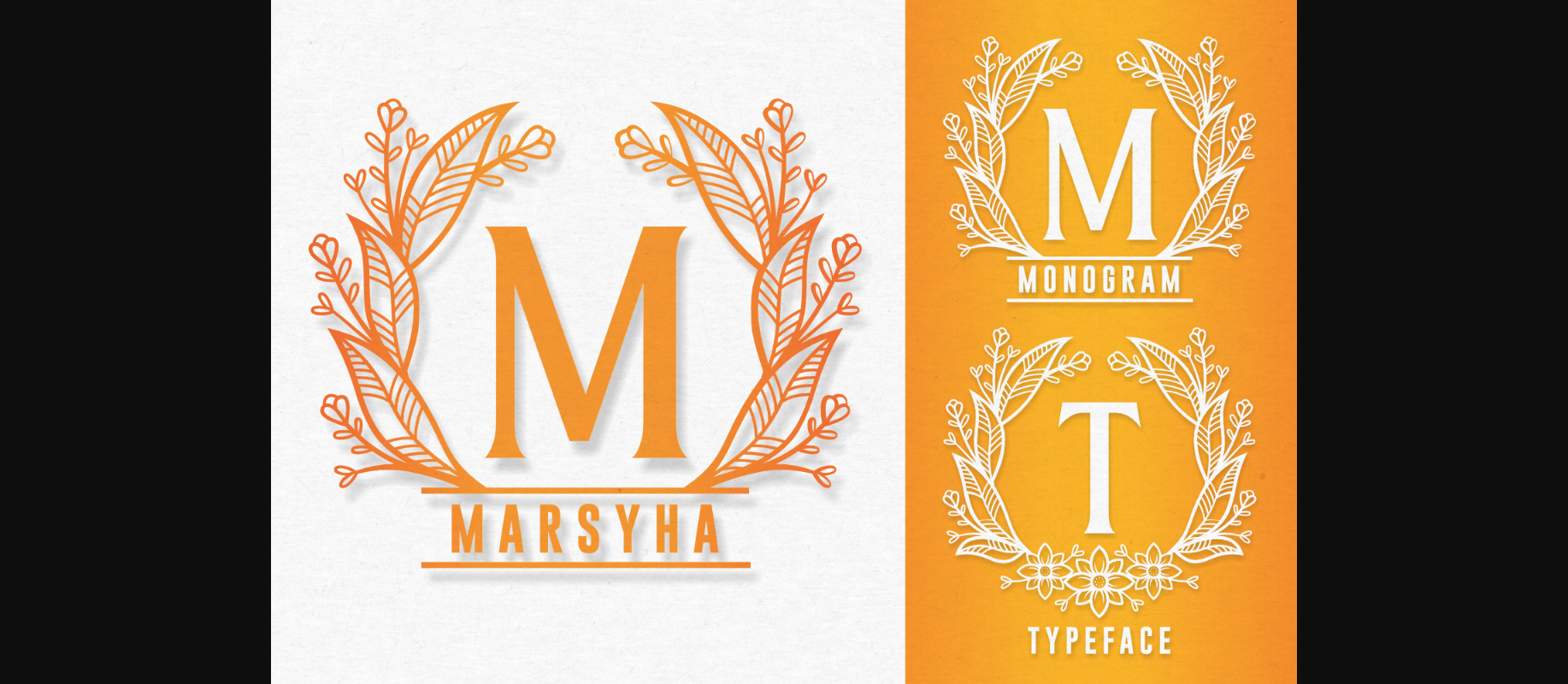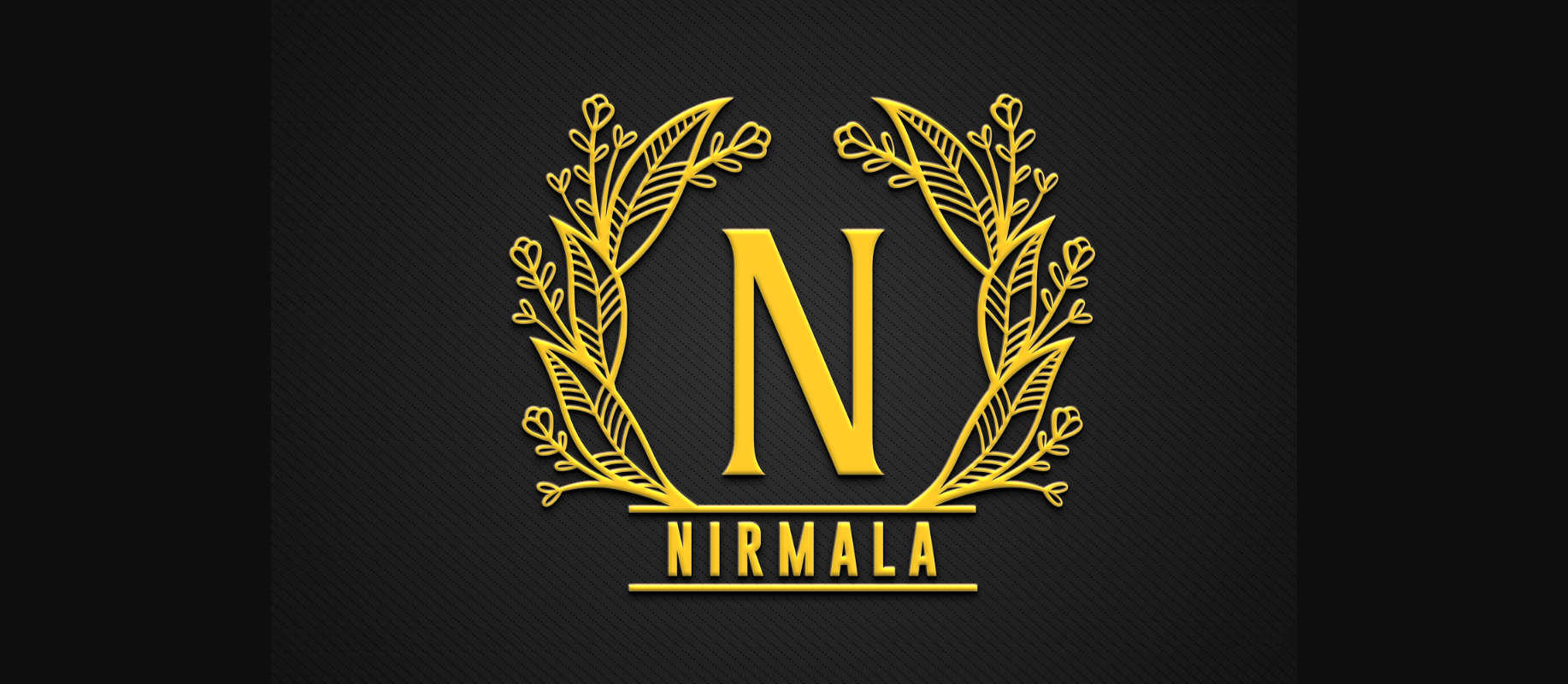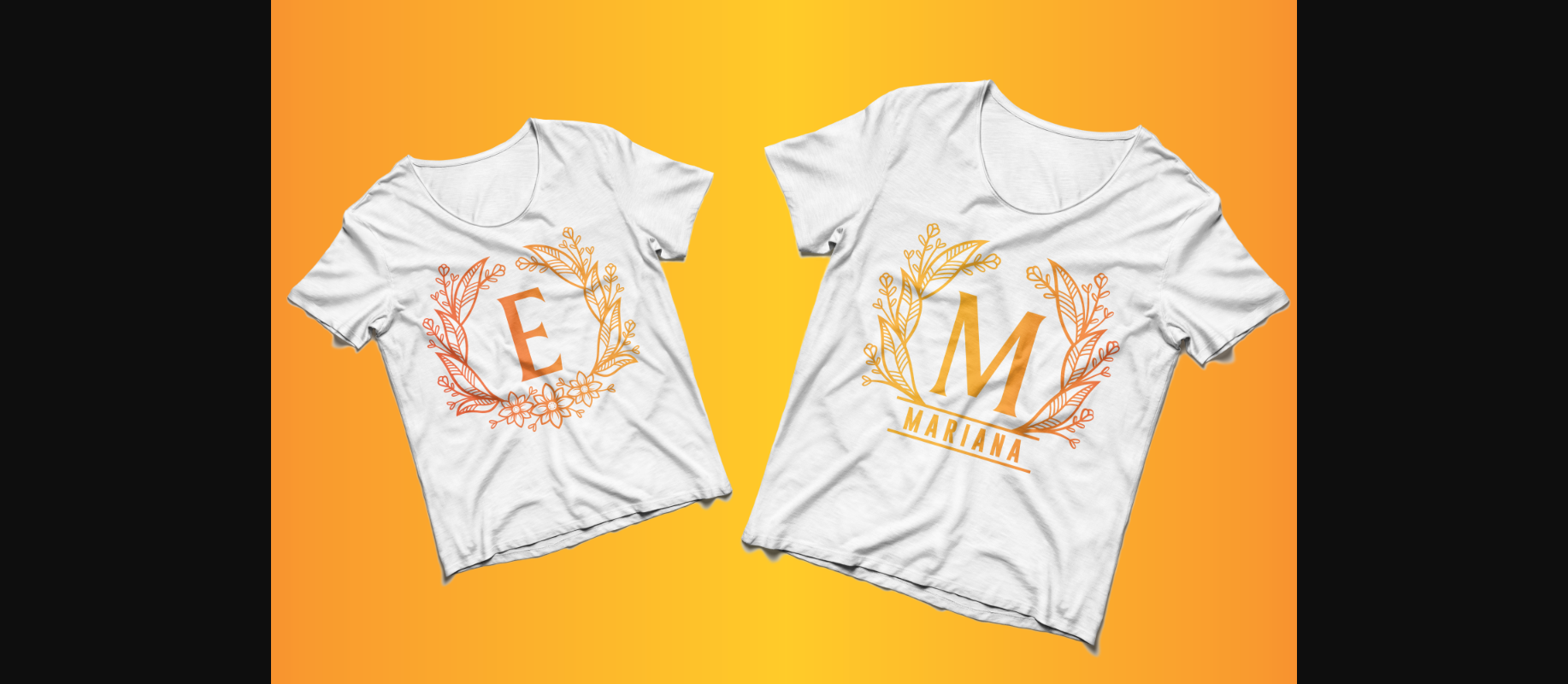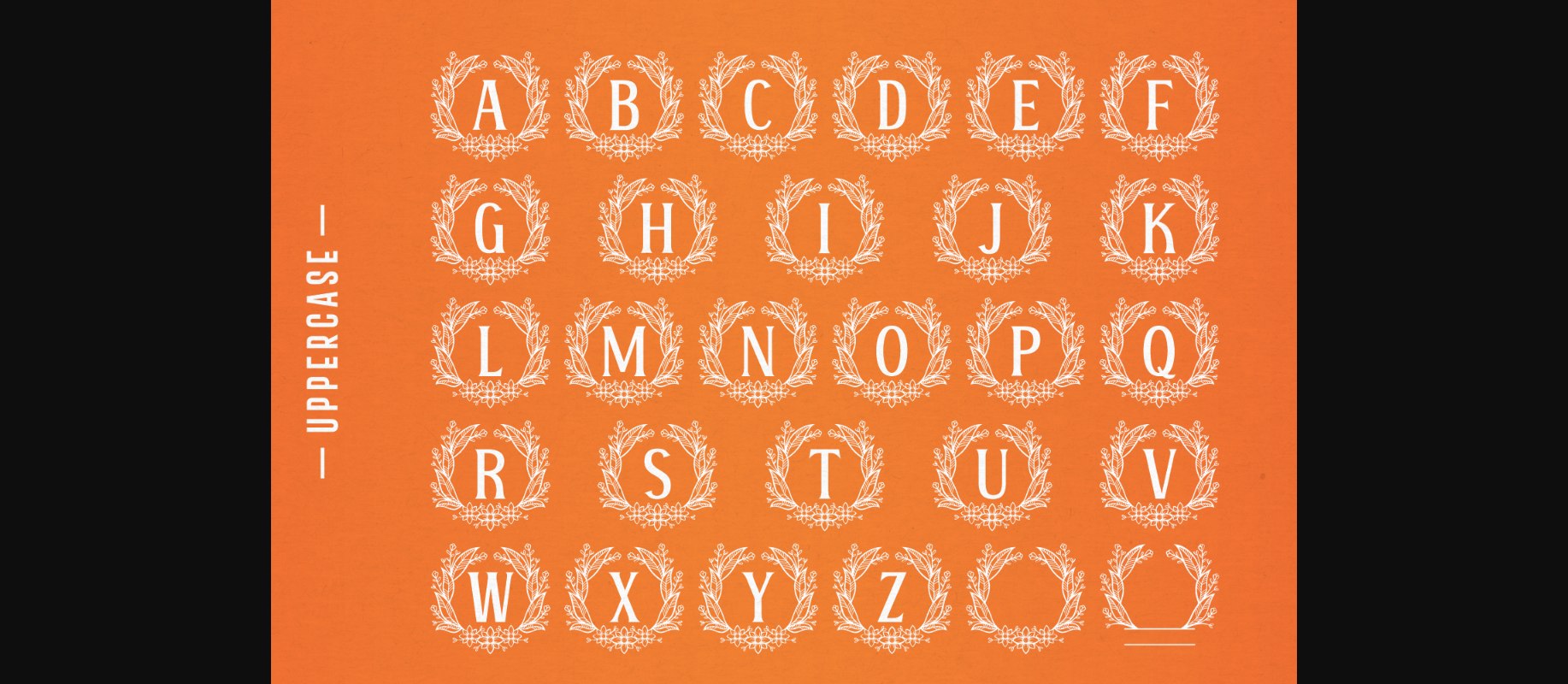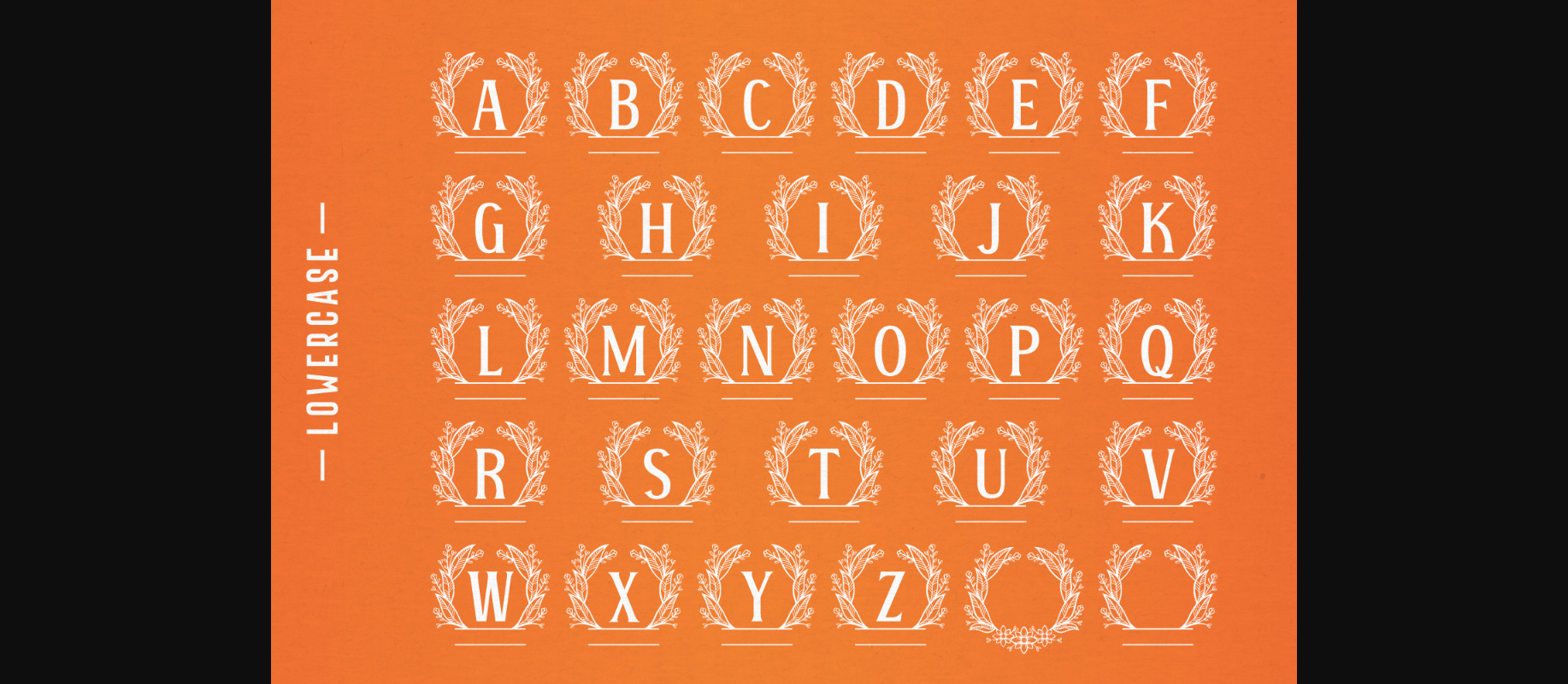
Marsyha Font
About Marsyha Font
Marsyha is a splendid decorative font featuring sleek serif characters surrounded by floral accents. This gorgeous typeface helps you personalize wedding designs, invitations, thank you notes, business cards, or anything else.